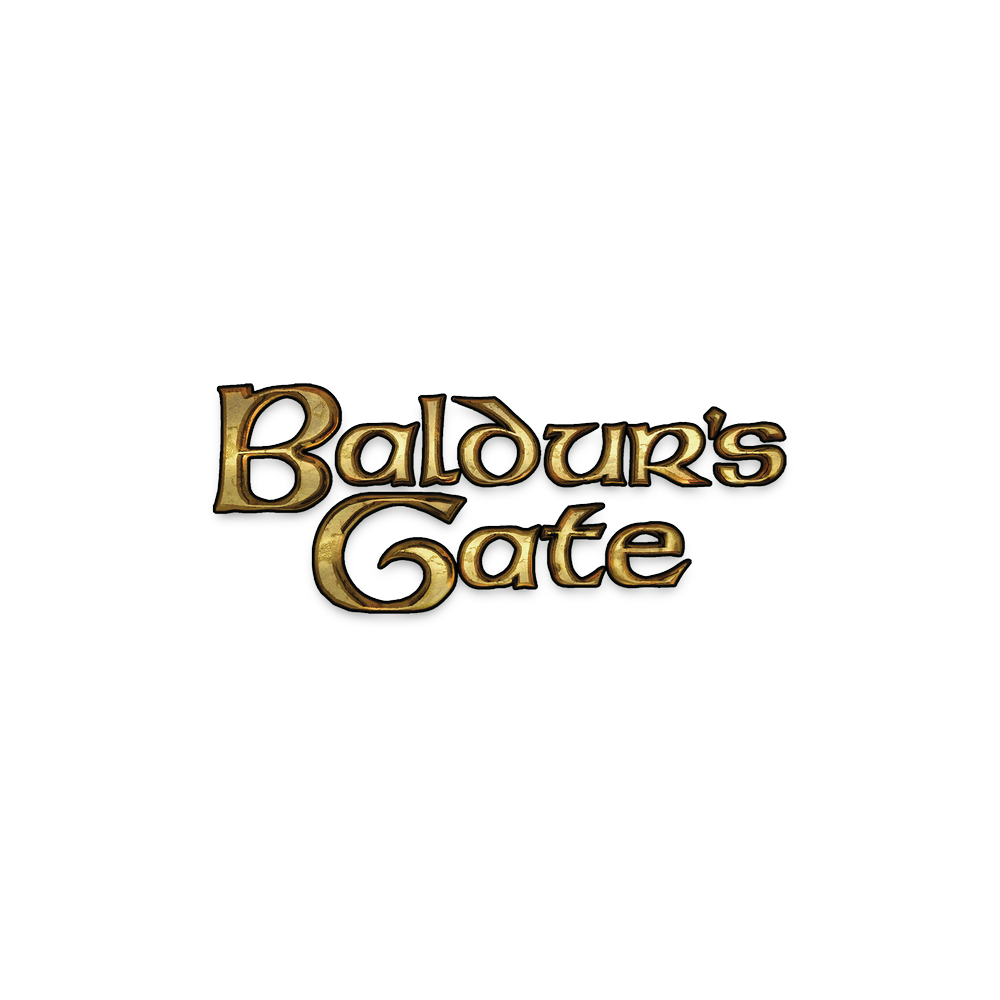
Baldur's Gate Font
FantasyBaldur’s Gate is a classic role-playing video game developed by BioWare and released in 1998. The game is set in the Forgotten Realms campaign setting of Dungeons & Dragons and follows the player character as they navigate political intrigue and battle monsters in the city of Baldur's Gate.
The font utilized for the game's logo on its box art resembles Uncial, a typeface created by Victor Hammer in 1952. This commercial font can be explored in further detail here.